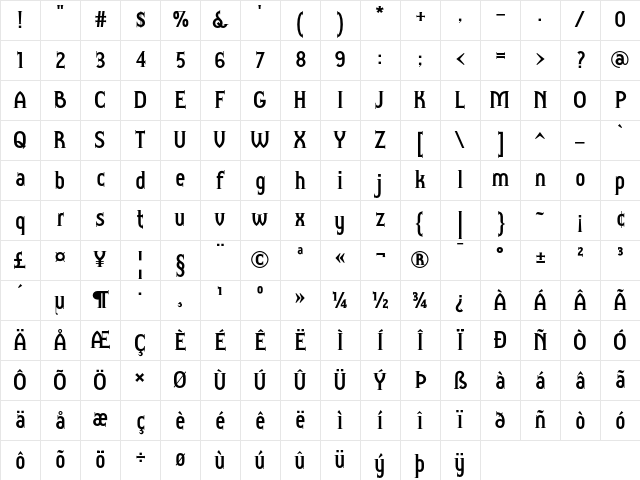
Complete Cambalache Bold Regular glyph index. Displaying only characters natively supported by Cambalache Bold Regular font.
Cambalache Bold is a composed and adaptable typeface that performs quietly and consistently across a wide range of design contexts. Its bold stroke weight gives it real presence on the page.